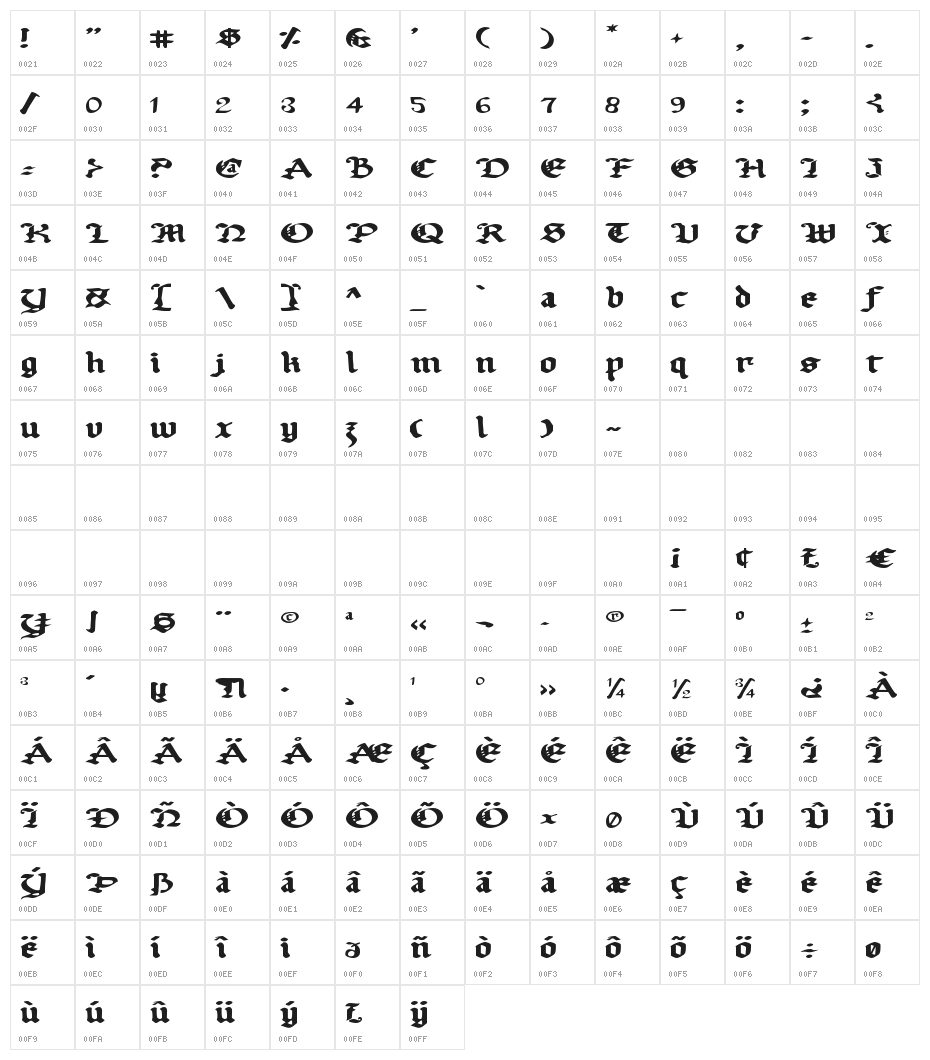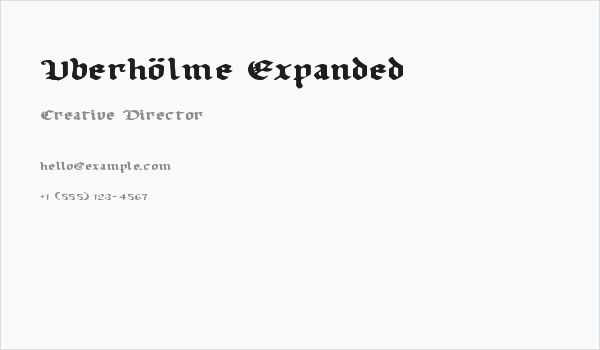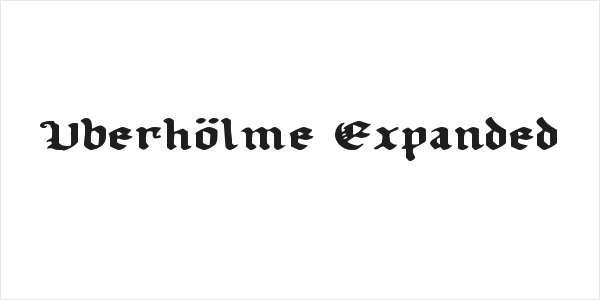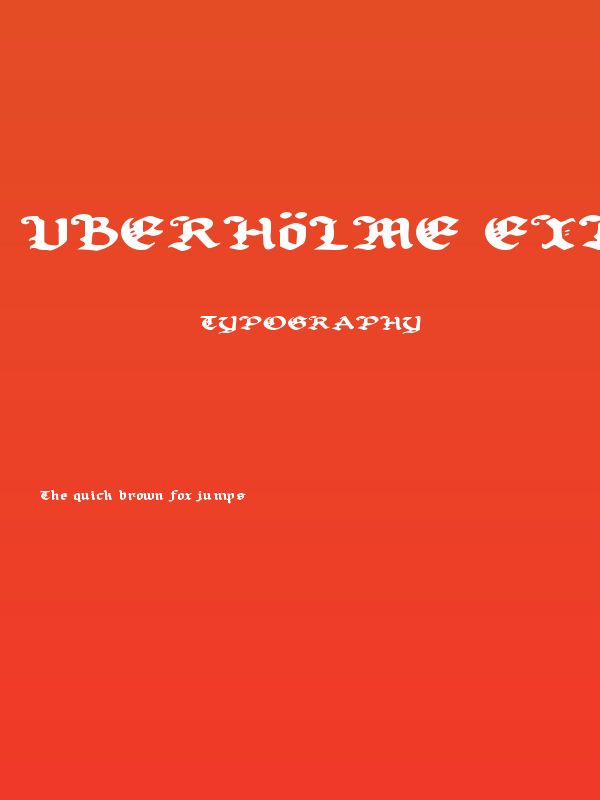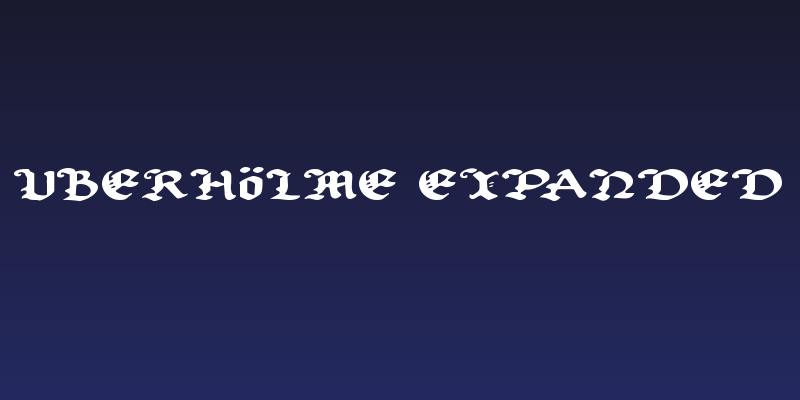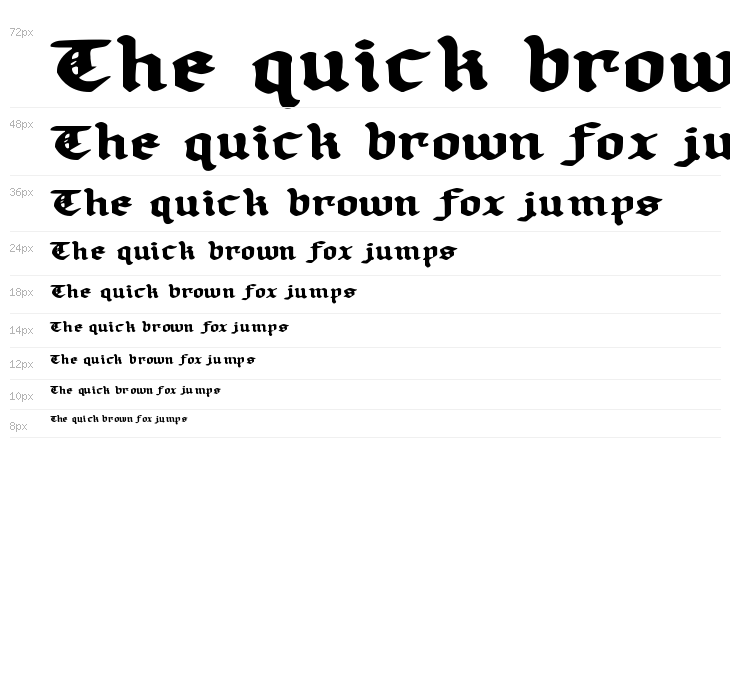
Uberhölme Expanded Font
Uberhölme Expanded Description
This font features a bold and dramatic style with a strong blackletter influence, characterized by its sharp, angular lines and intricate detailing. The uppercase letters are particularly ornate, with unique flourishes and a sense of historical grandeur. The lowercase letters maintain a consistent style, offering a harmonious blend of tradition and readability. Numbers and special characters are crafted with the same attention to detail, making them suitable for a variety of decorative purposes. The overall appearance is both striking and elegant, ideal for projects that require a touch of classic sophistication.